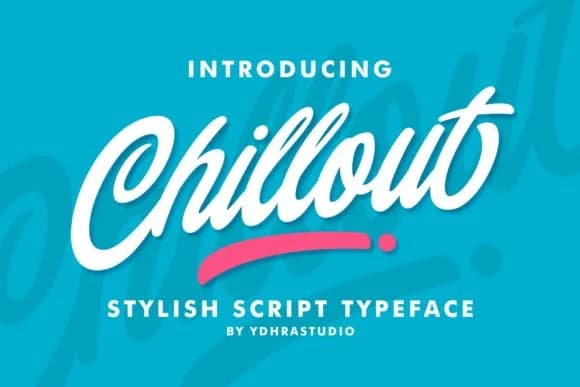
Chillout by YdhraStudio is a contemporary handwritten script that brings fluid, expressive letterforms to digital design work. With clear roots in modern hand lettering traditions, this font captures the spontaneity and personality of written letterwork while maintaining enough structural integrity for professional use across diverse applications. The typeface excels on wedding invitation suites, where guests appreciate the warmth of hand-drawn aesthetics and personal touches. It performs equally well for cosmetics and specialty beauty brand packaging that values an approachable yet sophisticated visual identity. Social media content creators and lifestyle brands benefit from its organic flow across Instagram graphics, blog headers, and wellness brand announcements.
Chillout brings distinctive character to event poster design, hand-illustrated children's book covers, and personalized stationery projects where authenticity and personality drive the design direction. The font comes fully equipped with an extensive collection of swashes and alternate letterforms, providing designers with meaningful flexibility to customize letter combinations and inject visual variety into their work. This nuanced feature set allows you to deploy the same typeface across different projects while maintaining strong visual cohesion and branding consistency.
Chillout Font is a script font that shines as a display or heading face. Pair it with a clean sans-serif or serif font for body text β the contrast creates a clear hierarchy while the two styles stay balanced and easy to read.
Chillout Font
by YdhraStudio